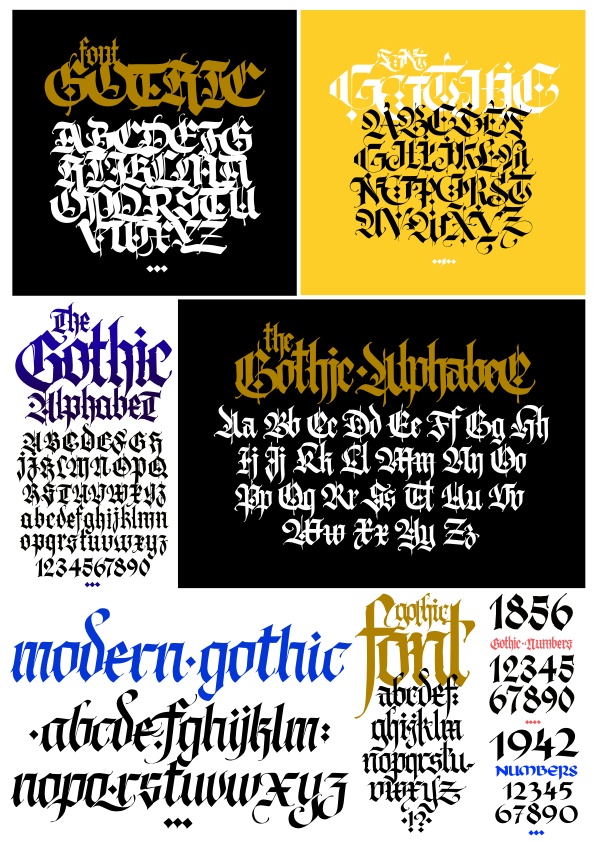
Collection of Gothic Alphabet Fonts and Numbers Free Vector
A compilation of various Gothic style alphabets and numbers showcasing uppercase and lowercase letters in blackletter calligraphy. Includes modern Gothic fonts, traditional Gothic alphabets, and stylized number sets in different color schemes.